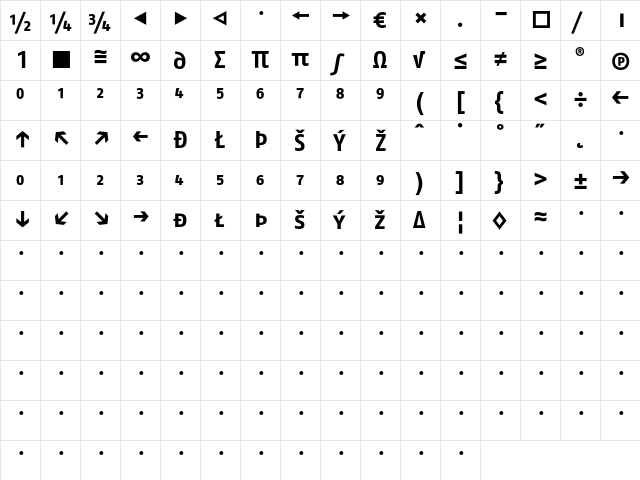
FagoNoBold Regular
Design Context for FagoNoBold Typeface
FagoNoBold takes a measured approach to typography — its balanced proportions and neutral character make it a reliable workhorse for both digital and print work. Its bold stroke weight gives it real presence on the page.